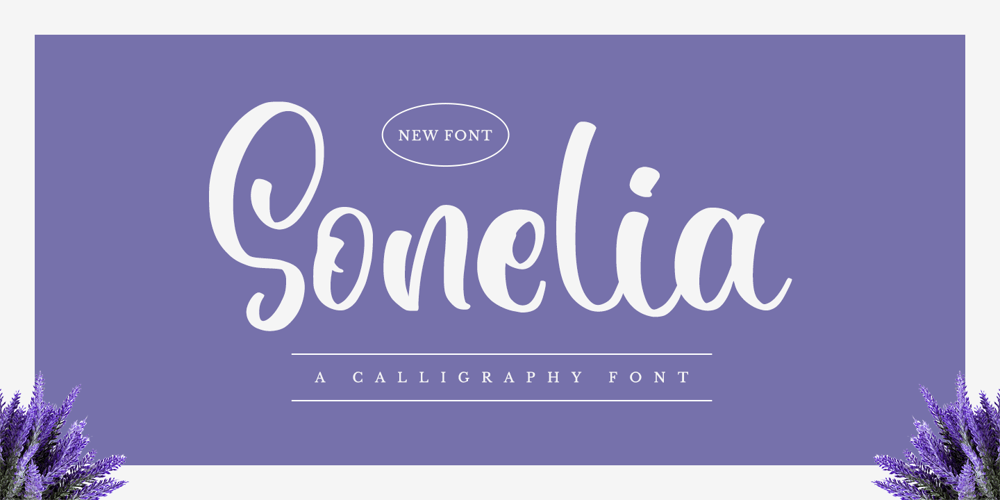
Sonelia Font Family was designed by Novia Himatunnisa and published by Nissa Nana. Sonelia contains 1 styles and family package options. Sonelia is a lovely and delicate script font that exudes elegance and class. This font is PUA encoded which means you can access all glyphs and swashes with ease!